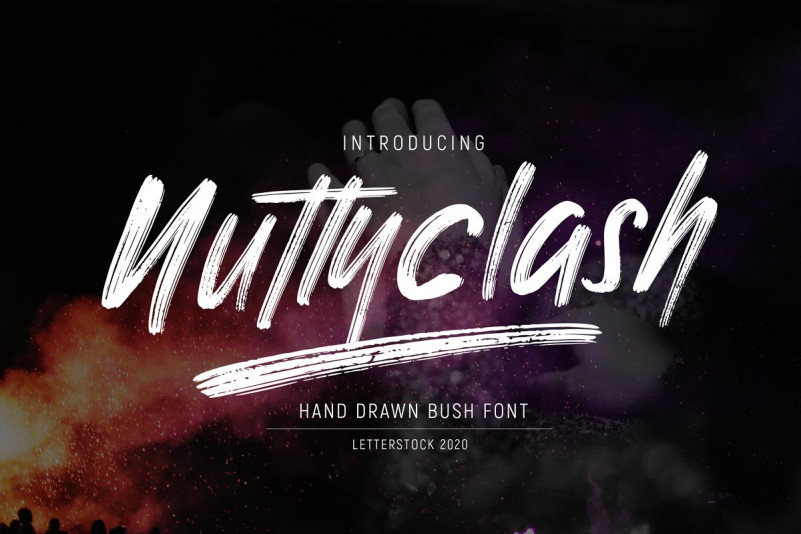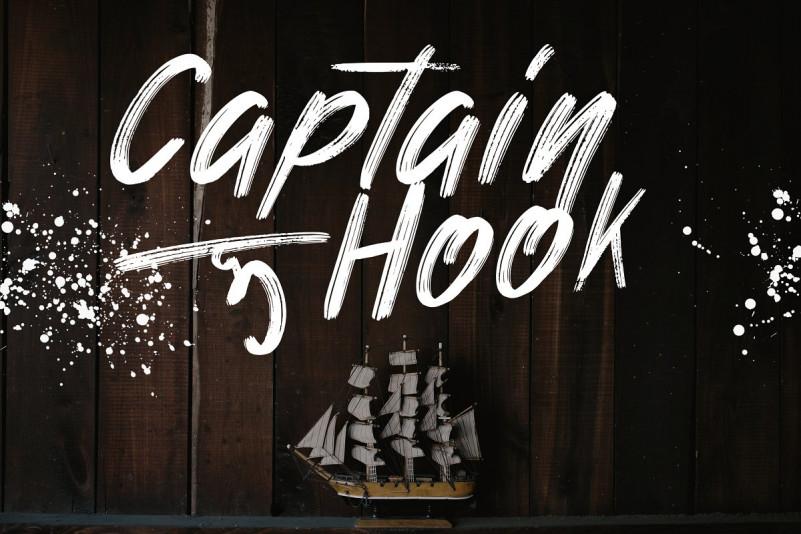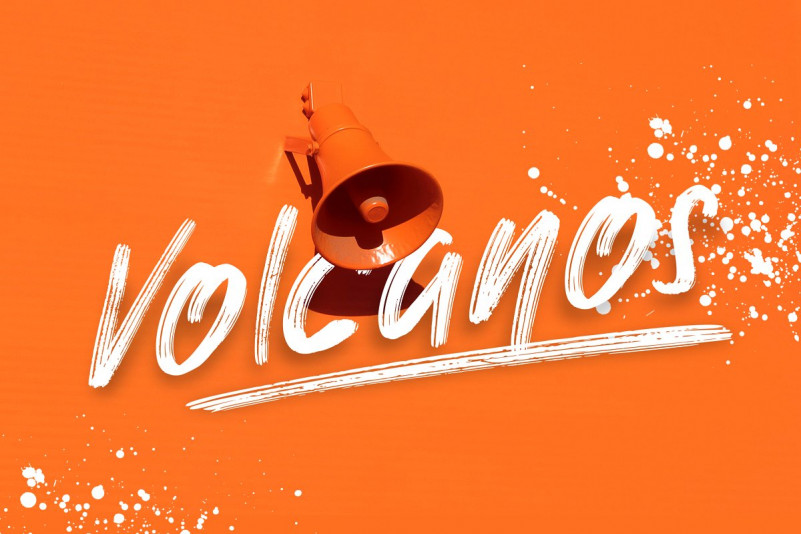
Nuttyclash Font
Nuttyclash is a decorative brush font. Inspired by some gravity drawing style, we try to combine it with a decorative concept. it’s perfect for you to show your design or product in professional way.